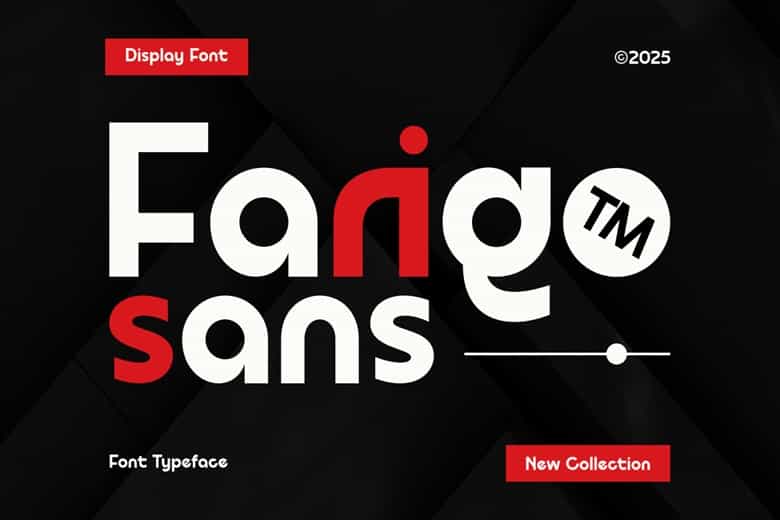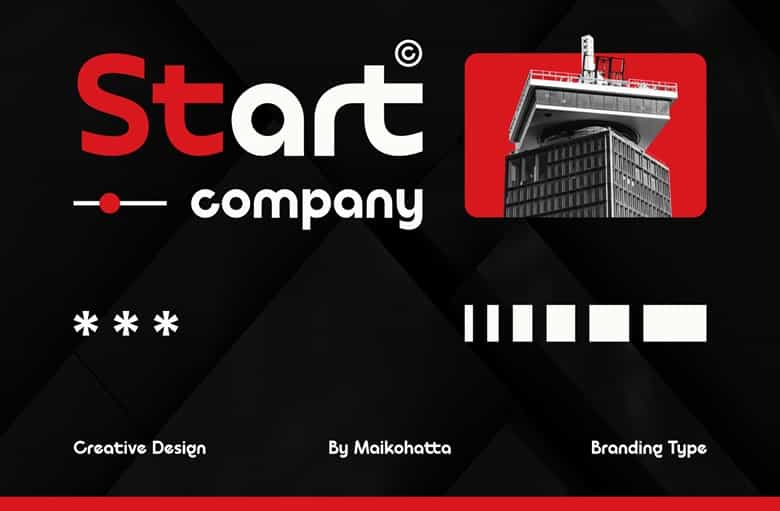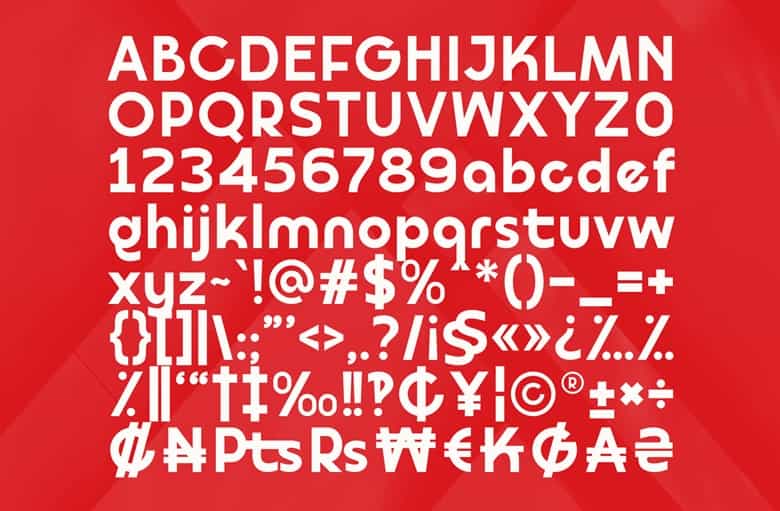
Farigo is a new and elegant sans serif font. This font can be used in virtually in any design and can be applied in even the most versatile projects. This font is quite ideal in the sphere of graphic design and modern typefaces due to the clear vision it provides, its professional, novate appearance, and simplicity and due to the fact that it is aesthetically appealing.